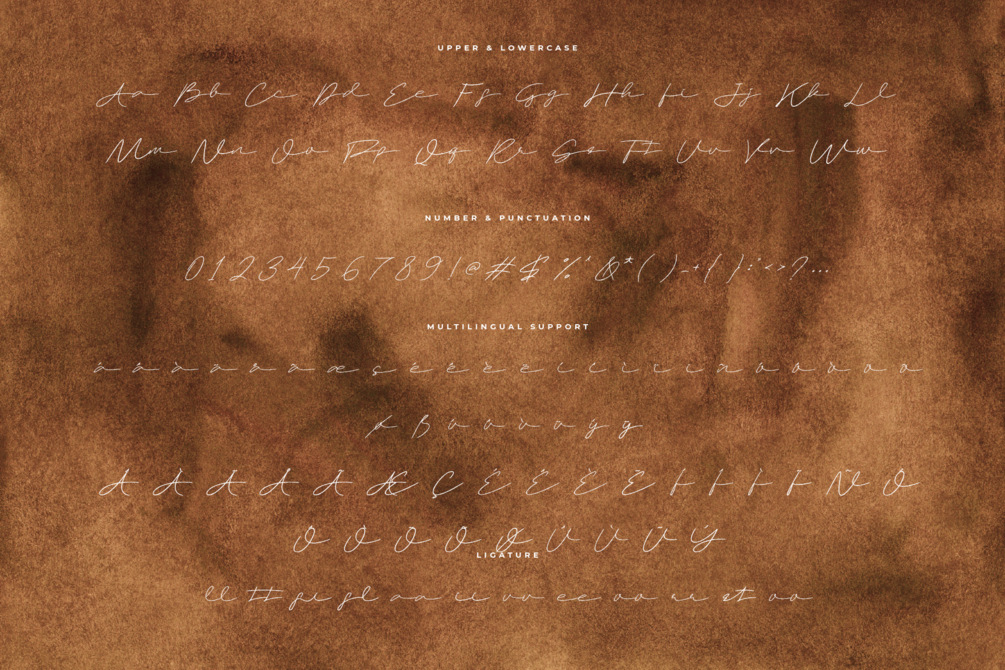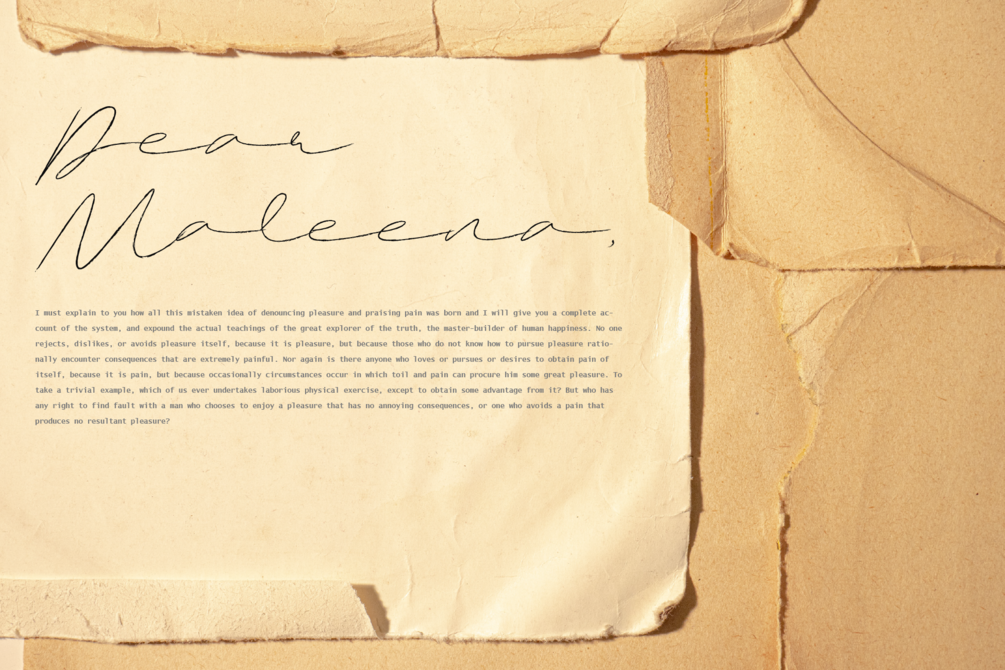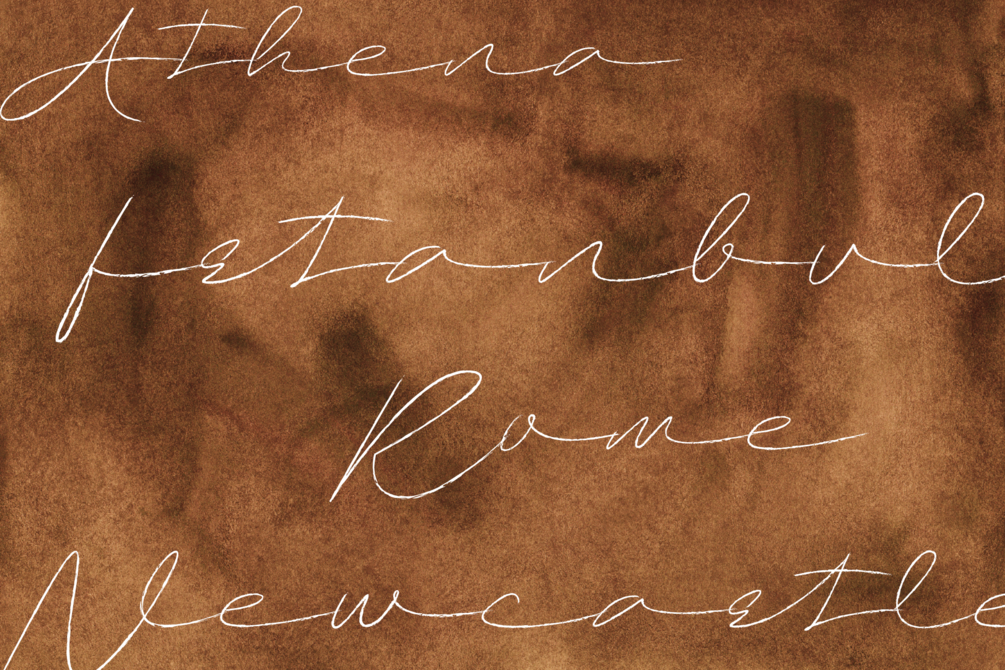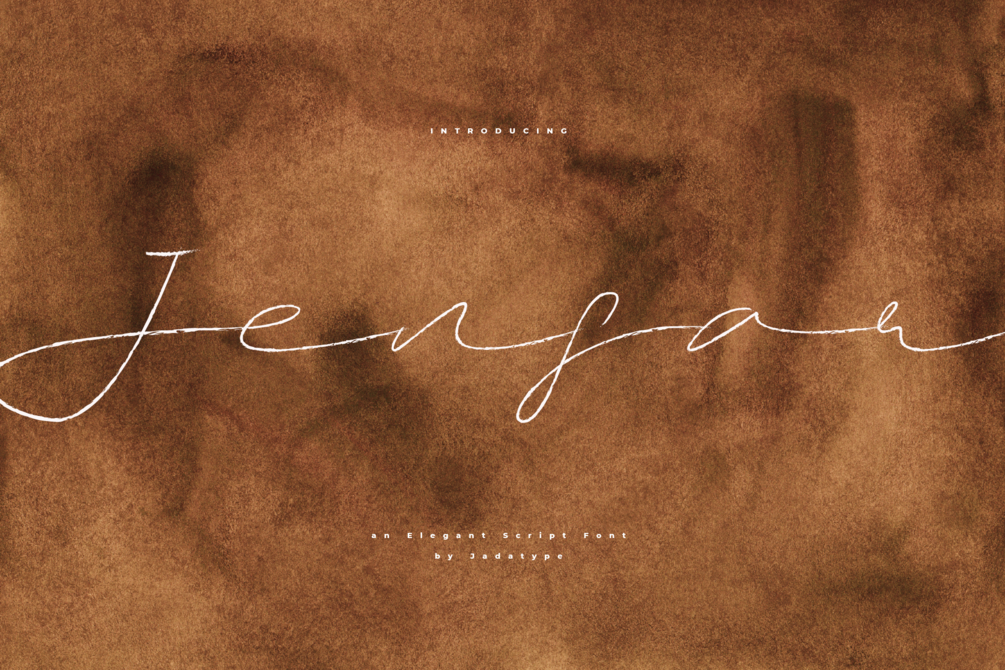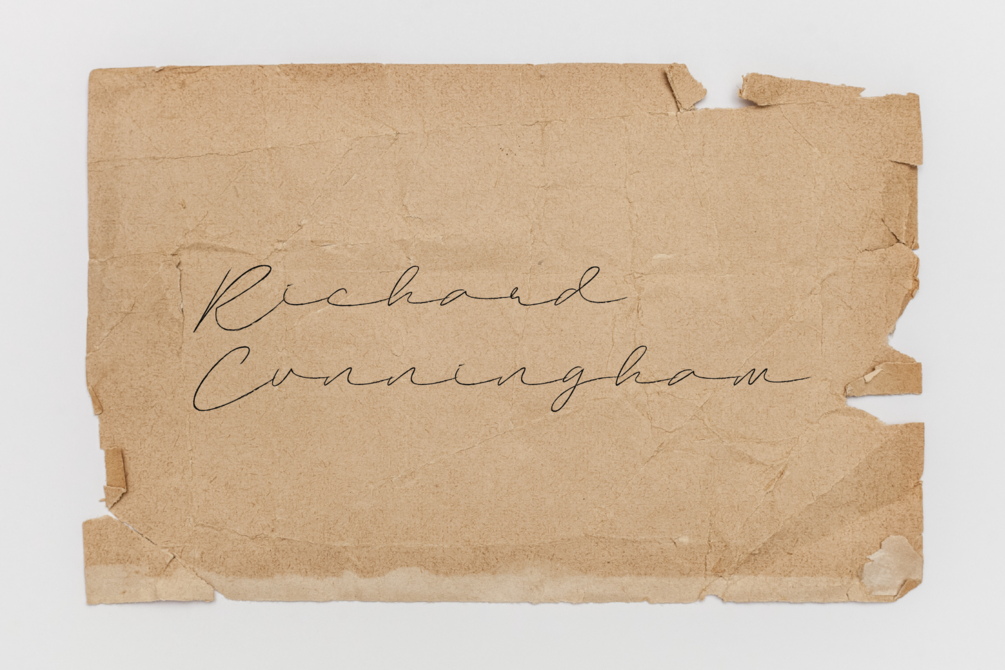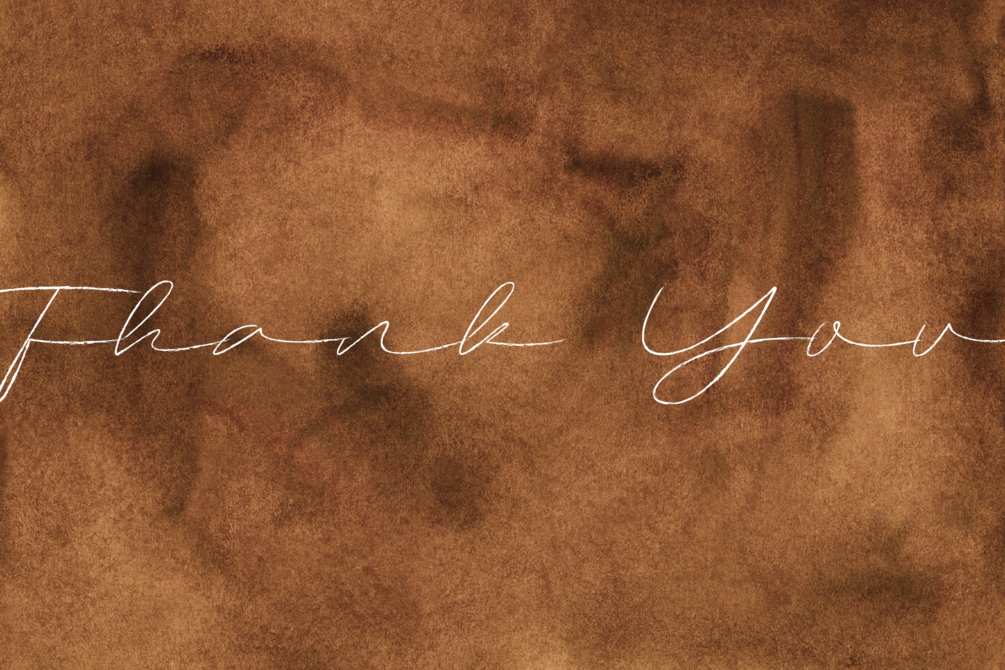
Jenfar Font
Jenfar is a script font that comes with a thin brush line. suitable for product, Branding, social media, logotype and so on. contains standard English letters, numbers, punctuation, and several accents that support multilingualism.